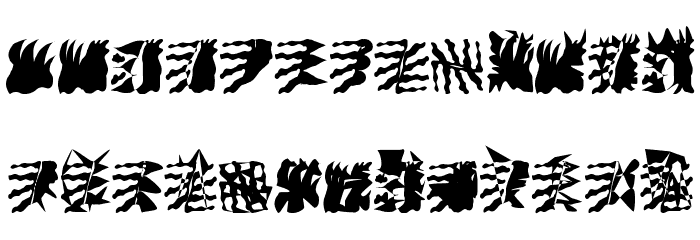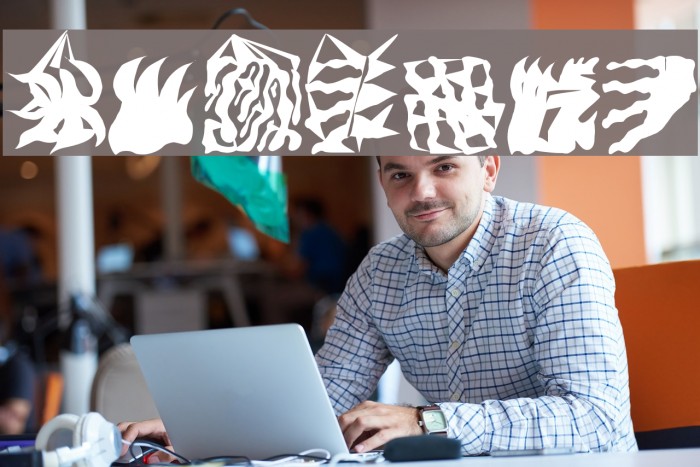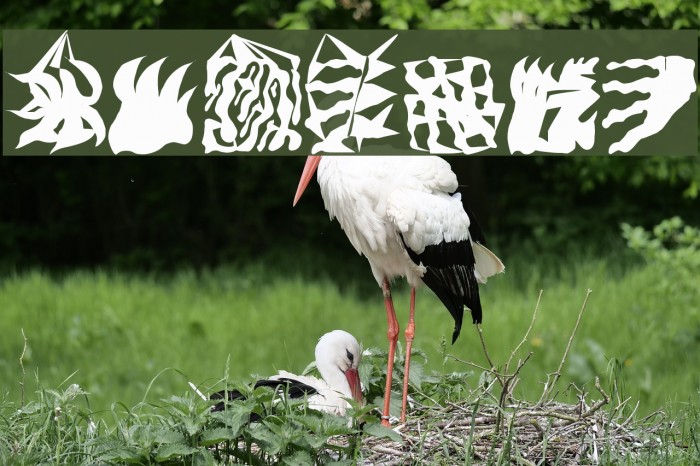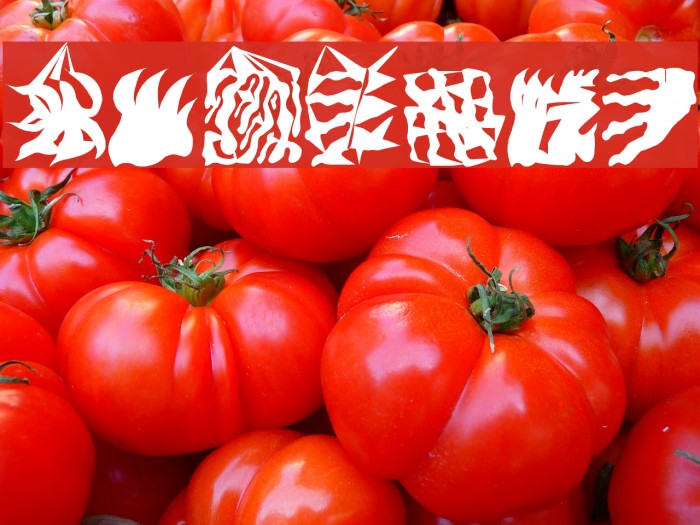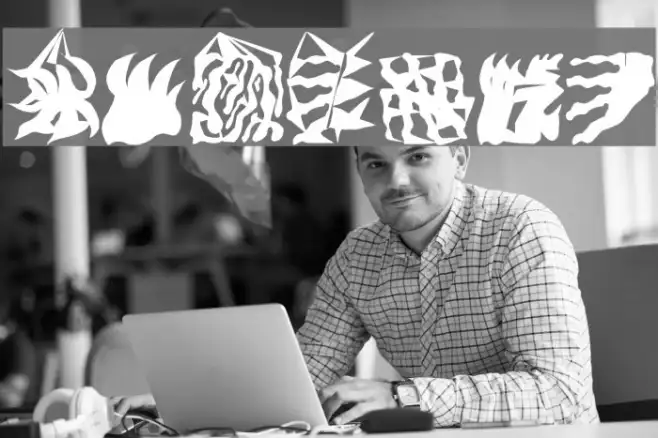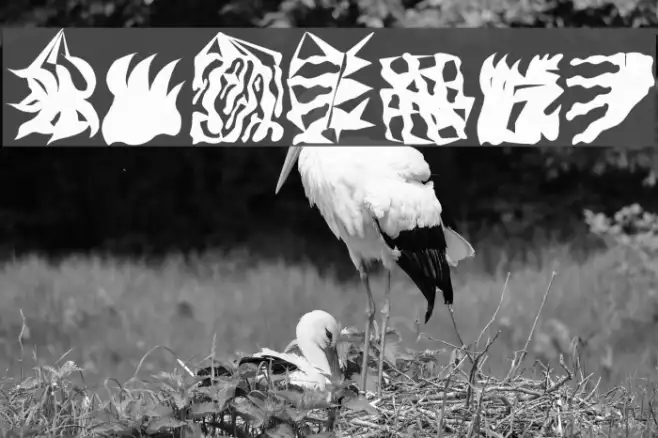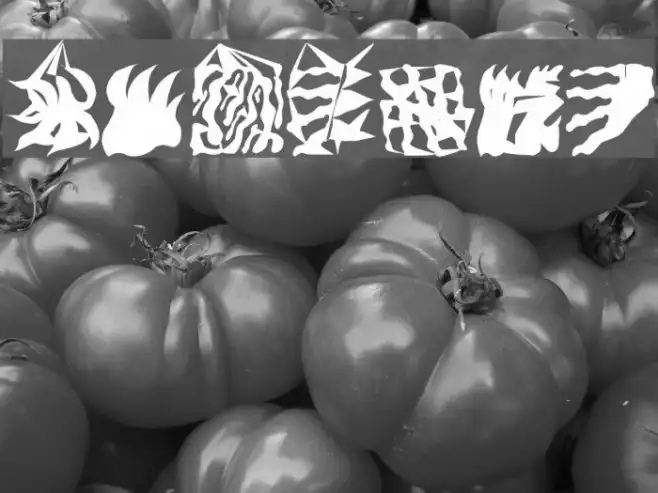
LaMorte2 Font
This font is a highly decorative and abstract design, characterized by its intricate and bold patterns that resemble organic shapes or tribal motifs. Each character is uniquely crafted, featuring a dense and complex structure that makes it stand out. The font is not easily readable at a glance due to its artistic and ornamental nature, which prioritizes visual impact over legibility. The characters are filled with solid black, creating a strong contrast against any background. This font is ideal for projects that require a striking and unconventional aesthetic.
A decorative and abstract font with intricate, bold patterns resembling organic shapes.
- Proposed Projects: Ideal for album covers, posters, or any design project that seeks to make a bold artistic statement.
- Character Spacing: Tight
- Use Case: Logos, Posters, Artistic projects